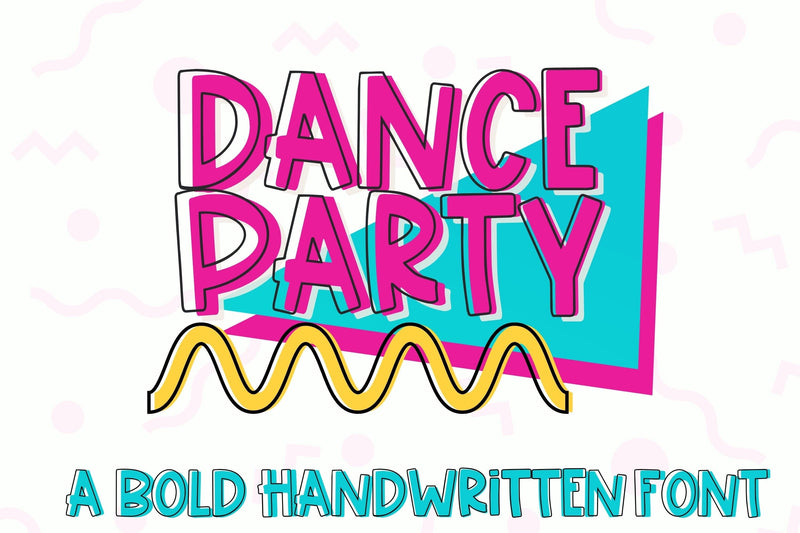
Dance Party, Bold Handwritten Uppercase Font
Dance Party is a fun bold uppercase handwritten font with solid letters (uppercase) and outline letters (lowercase). Perfect for fun logos, greeting cards, t-shirt design, stickers, social media, crafts, and much more. Dance Party is a quirky handwriting font which can be used in illustrator, cricut, procreate, or any program that supports open-type fonts!